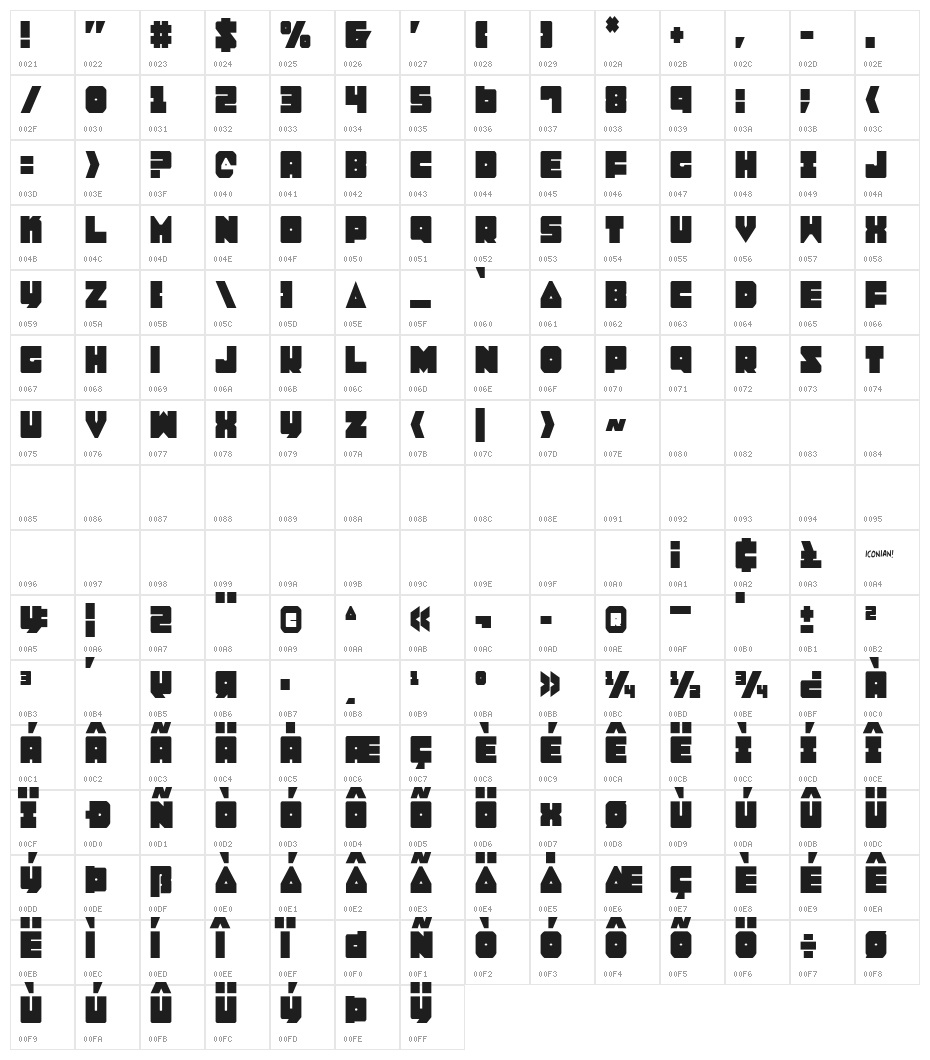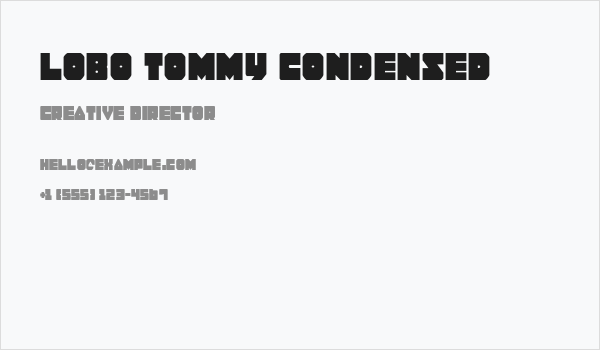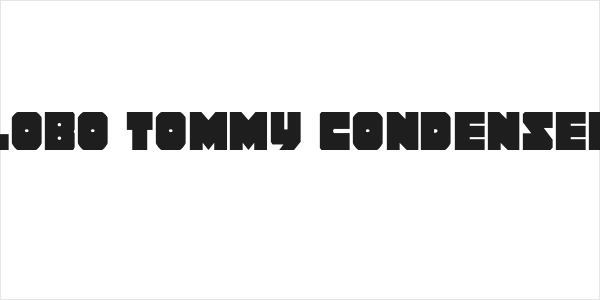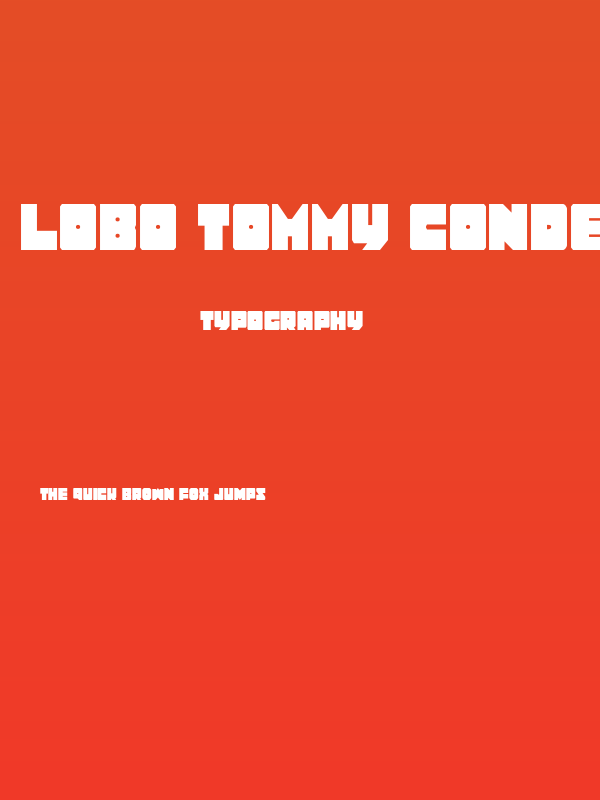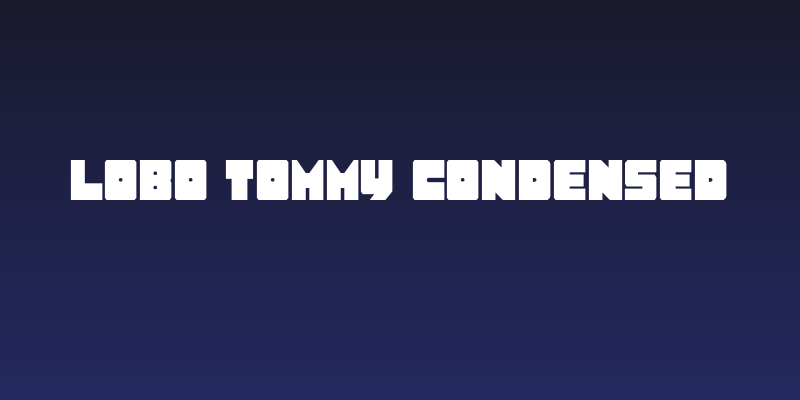
Lobo Tommy Condensed Font
Lobo Tommy Condensed Description
This bold and striking font features a geometric and blocky design, characterized by its thick, uniform strokes and angular shapes. The letters are condensed, giving it a compact appearance, while maintaining a strong visual impact. The uppercase and lowercase letters share a similar style, with minimal differentiation, enhancing its cohesive look. Numbers and special characters are designed to match the boldness and geometric nature of the alphabet, making it versatile for various uses. The font's unique style is ideal for projects that require a modern and edgy aesthetic.
| Proposed Projects | Ideal for headlines, posters, branding, and any design requiring a strong visual impact. |